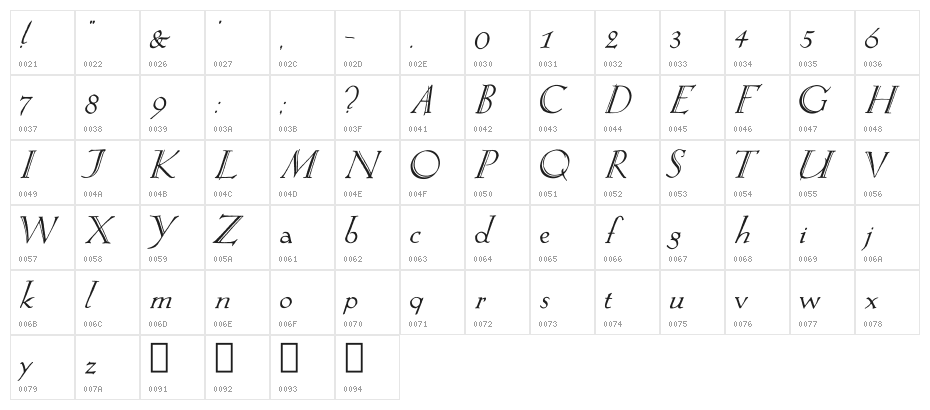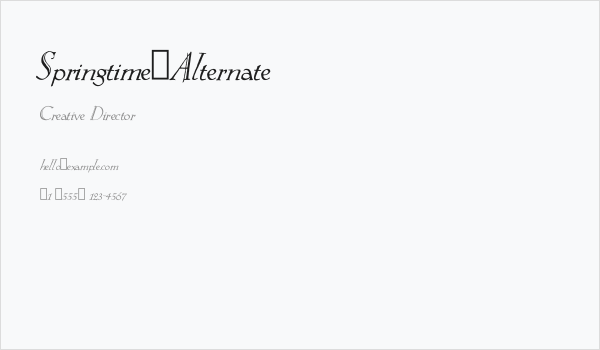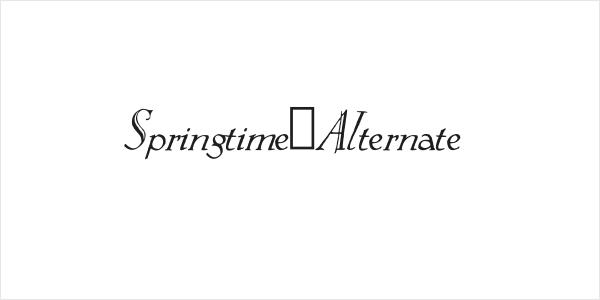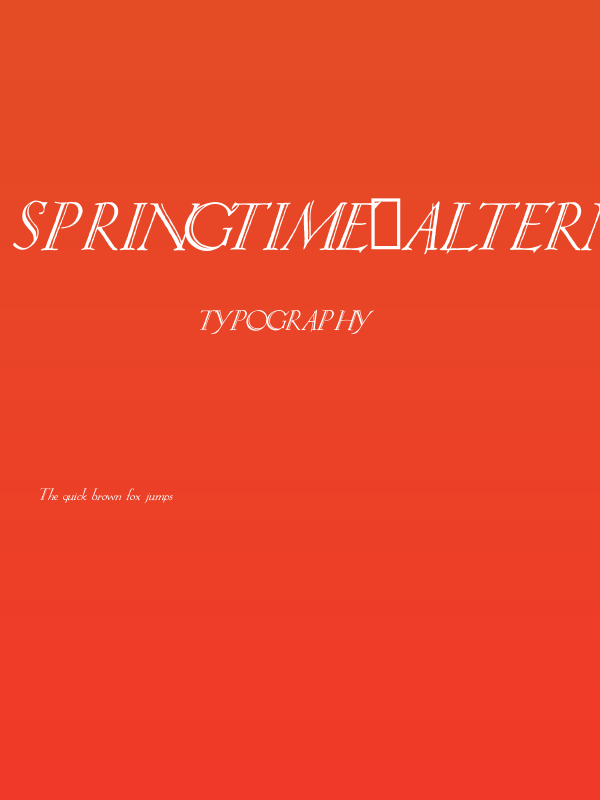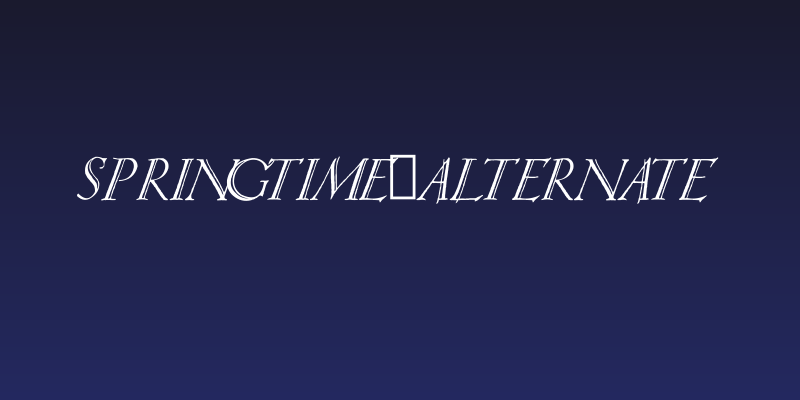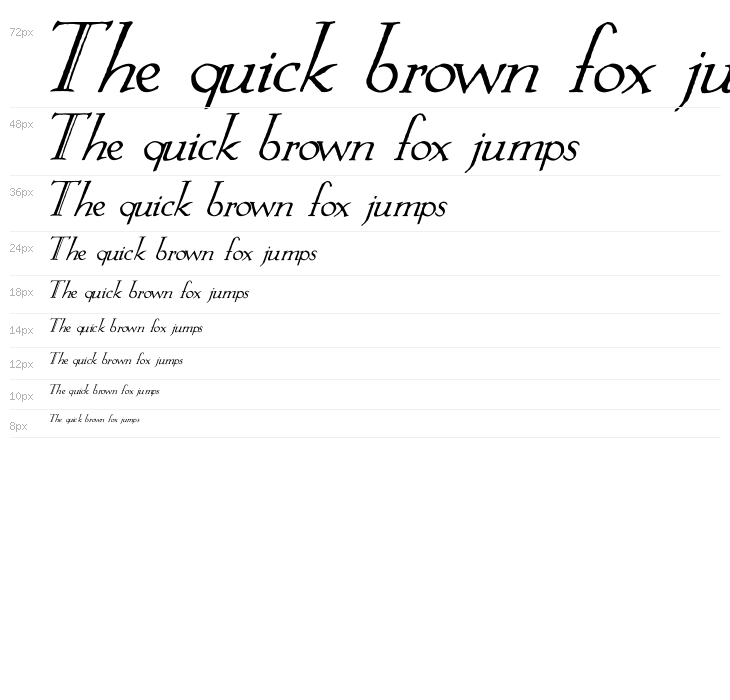
Springtime_Alternate Font
Springtime_Alternate Description
This font features an elegant, flowing script style with a slightly italicized appearance. The uppercase letters are tall and slender, with a graceful, sweeping quality that suggests movement and sophistication. The lowercase letters maintain a consistent style, with smooth curves and a slight slant that enhances readability while maintaining an artistic flair. The numerals are designed to match the overall aesthetic, with a balanced mix of curves and straight lines. Special characters are included, maintaining the same stylistic elements, ensuring a cohesive look across all text. This font's unique style makes it suitable for projects that require a touch of elegance and creativity.
| Overall Style | Elegant, Artistic |
| Use Case | Headlines, Invitations, Artistic Projects |
| Proposed Projects | Ideal for wedding invitations, elegant branding, artistic posters, and creative editorial design. |